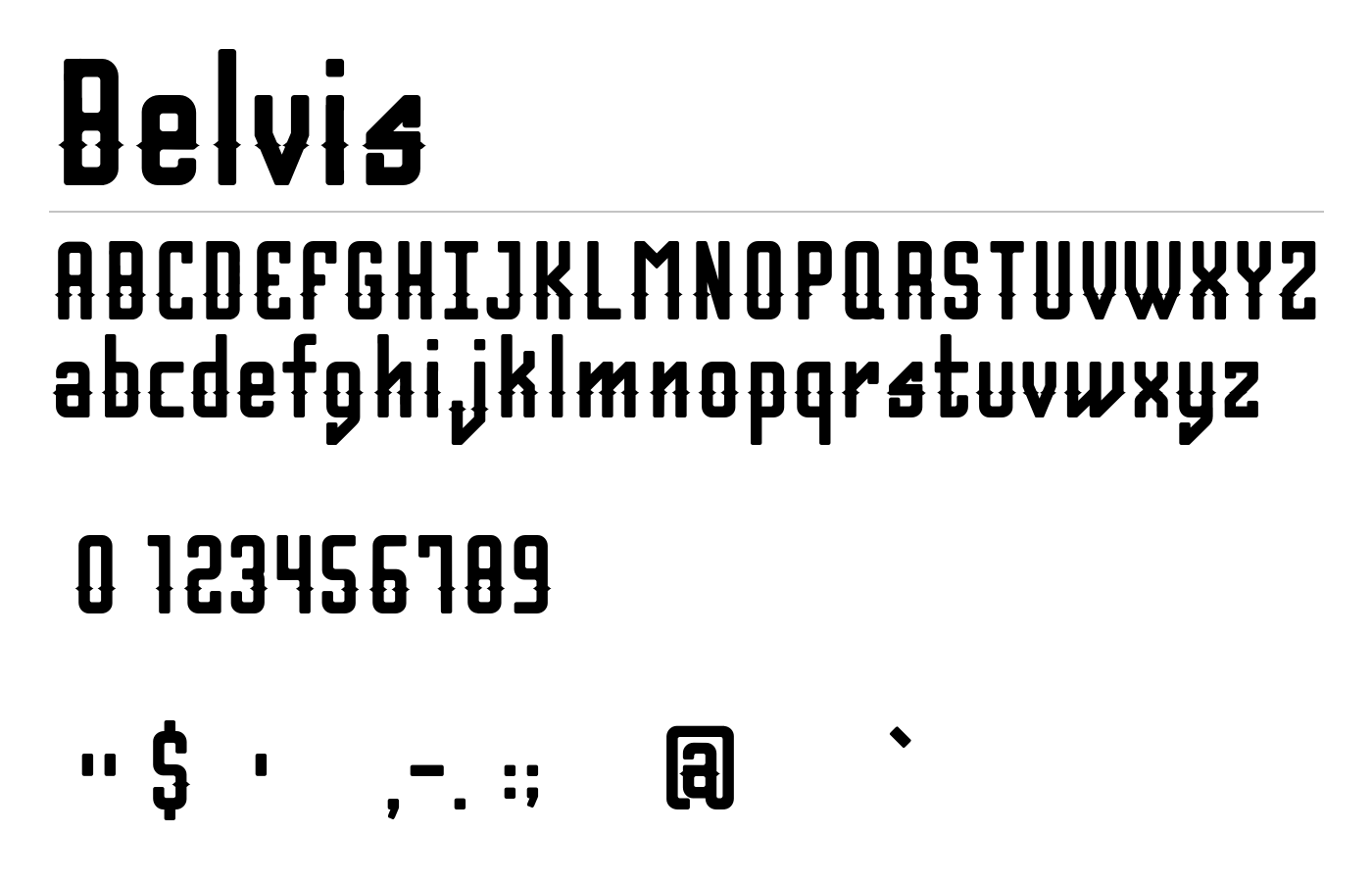
Belvis is a bold, condensed sans serif font with a unique industrial and futuristic feel, characterized by its geometric shapes and distinctive cut-out details in the middle of each letter. Its tall x-height and uniform stroke weight give it a strong, modern presence that makes it ideal for eye-catching headlines, branding, and display use where a tech-inspired or edgy look is desired. This font works well for projects seeking a contemporary, innovative vibe with clear readability and a striking visual impact.
Belvis Font
About Belvis Font
| Font family | Belvis Font |
| Designer | Esteban Belvís Silk |